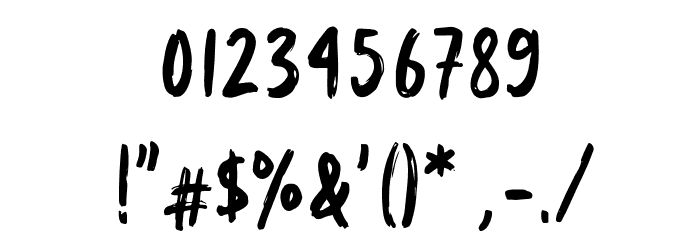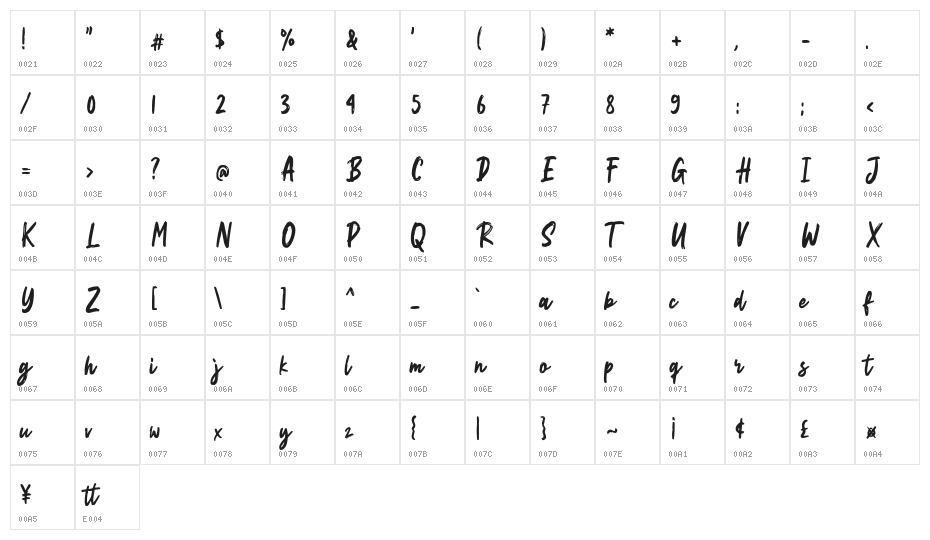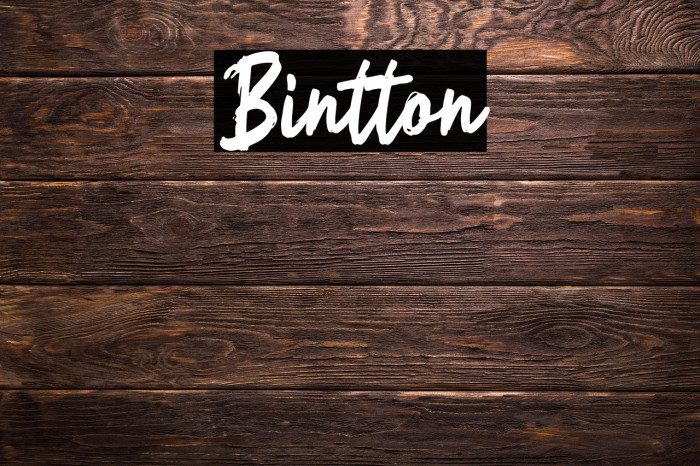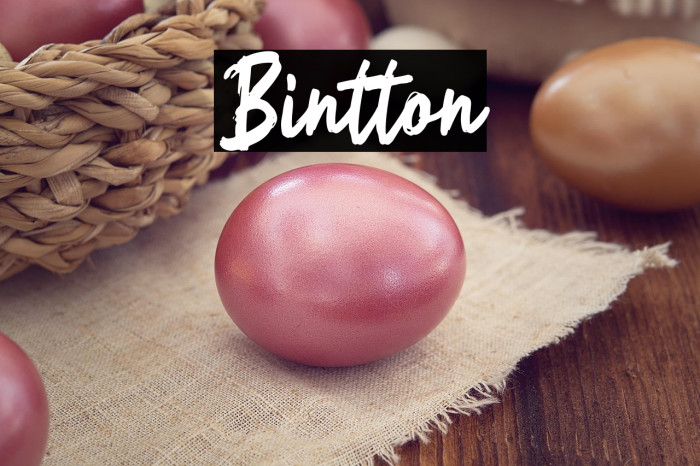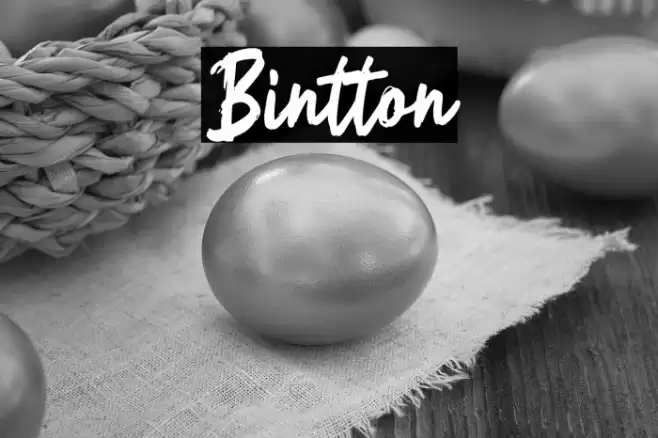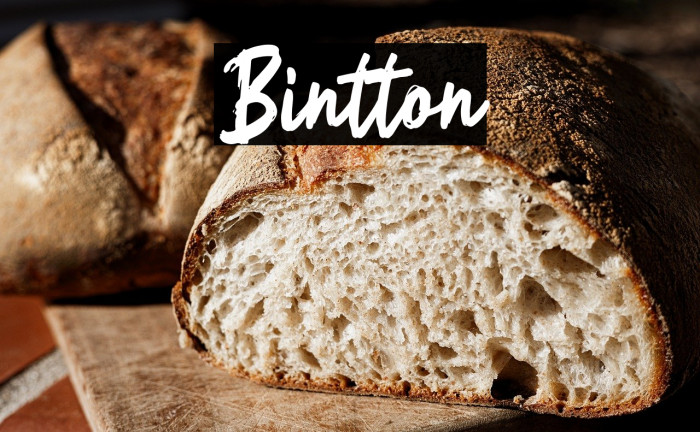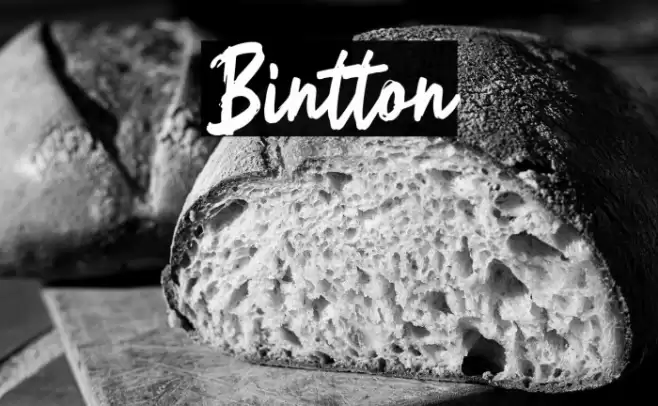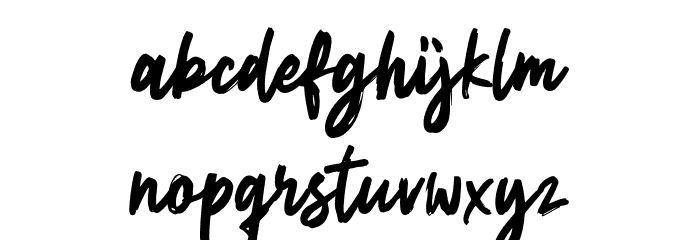
Bintton Font
Bintton Description
This font exudes a bold and energetic vibe with its brushstroke style, giving it a dynamic and artistic appearance. The uppercase letters are robust and slightly irregular, adding a sense of movement and spontaneity. The lowercase letters maintain the same lively character, with smooth curves and a handwritten feel. Numbers and special characters are consistent with the overall style, ensuring a cohesive look. This font is perfect for projects that require a personal touch or a creative flair, such as posters, branding, and social media graphics.
| Proposed Projects | Ideal for posters, branding, social media graphics, and any project needing a creative flair. |